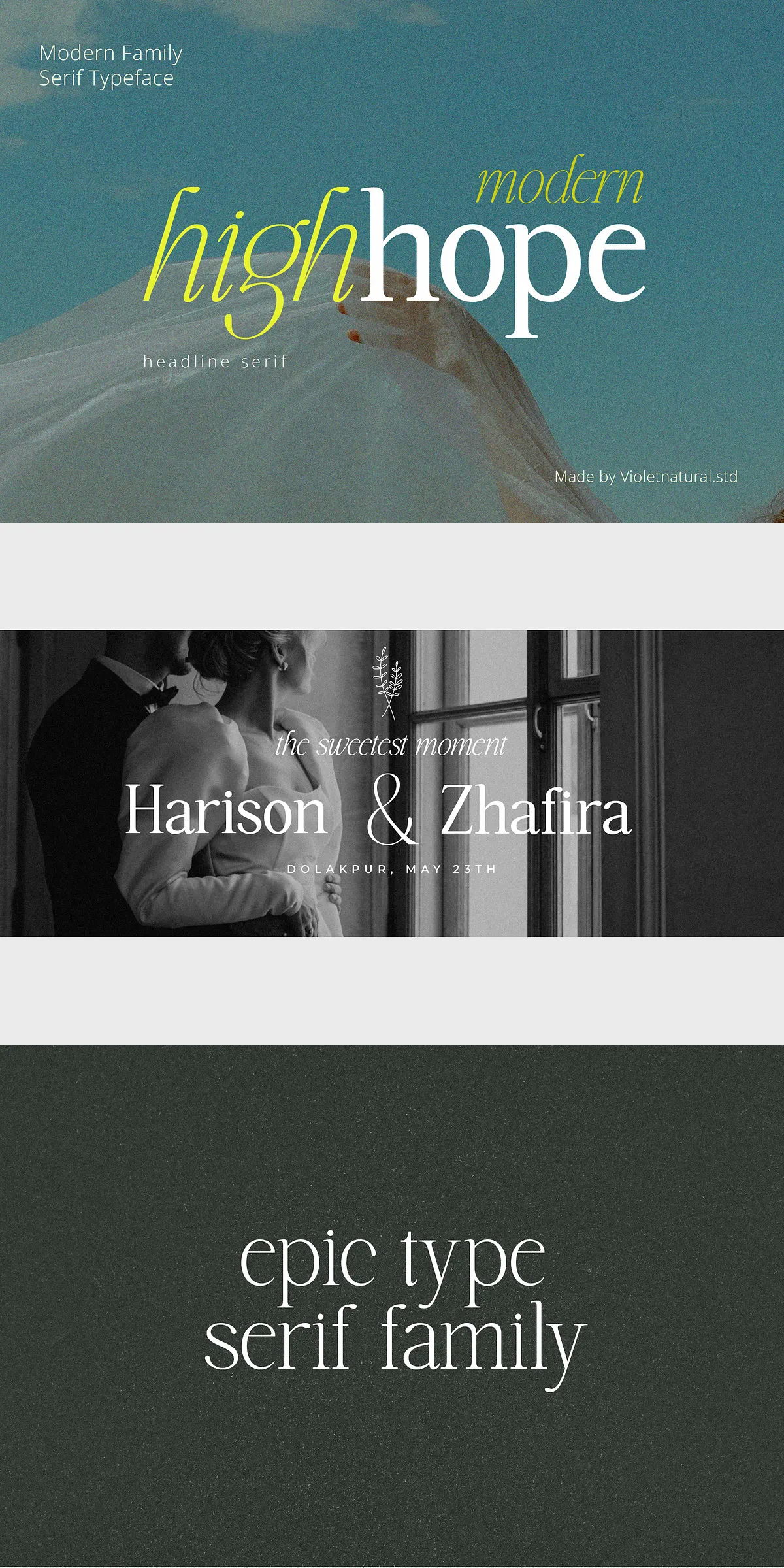
Step into a design era where timeless elegance meets contemporary edge. Highhope Serif Family is more than a typeface—it’s a statement. Meticulously crafted to honor the soul of classic retro typography while fully embracing the demands of today’s digital world, Highhope Serif Family transforms ordinary projects into extraordinary visual experiences. Whether you’re building a brand identity, designing an editorial layout, or crafting a bold poster, this font delivers aesthetic sophistication, emotional warmth, and undeniable impact.
Retro Roots, Modern Purpose: A Typeface Built for Today
Highhope Serif Family draws its inspiration from the golden age of print: the 1950s to 1970s, when serif typefaces defined sophistication. Think vintage magazines, movie posters, and classic branding—characters with personality, contrast, and a touch of drama. But this isn’t nostalgia for nostalgia’s sake. Highhope Serif Family reimagines those retro foundations through a modern lens. Its letterforms are harmoniously balanced, with refined stroke weights, improved spacing, and clean geometry—ensuring flawless readability on screens, in print, and across platforms.
This fusion of old and new creates a rare duality: it feels familiar and comforting, yet fresh and bold. It’s the kind of font that commands attention without shouting—perfect for creators who want depth, character, and timeless appeal in their work.
Fully-Featured Font Family for Every Design Need
Highhope Serif Family isn’t a single style—it’s a complete suite of typographic tools. Each variant is designed to serve a specific creative purpose, empowering you to build hierarchy, rhythm, and visual storytelling:
- Regular: The foundation of the family. Ideal for body text, captions, and clean headlines that need clarity and grace. Its balanced proportions make it highly legible and highly stylish.
- Italic: Adds elegance and motion. Use for quote blocks, feature titles, or to emphasize emotional moments in your design. The subtle slant enhances expressiveness while maintaining elegance.
- Bold: For impact. When you need to grab attention instantly, this weight delivers power and presence. Perfect for logos, posters, and section headers.
- Bold Italic: The ultimate powerhouse. Combine strength with flair. Use in editorial design, promotional materials, or branding to create dynamic, high-energy visuals.
Choosing the right variant isn’t just about style—it’s about strategy. With four core weights and styles, you can guide your audience’s eye, create visual tension, and deliver your message with precision and flair.
Designed for Creatives, Built for Impact
Highhope Serif Family thrives in real-world design scenarios:
- Branding & Logos: Create distinctive, memorable brand identities that stand out in crowded markets. The retro-meets-modern style gives your logo character and emotional depth.
- Editorial Design: Elevate magazine spreads, zines, and digital publications with headlines and quote blocks that tell a story.
- Print & Packaging: Add aesthetic richness to business cards, flyers, packaging, and posters. The font’s texture and balance make physical designs feel luxurious and intentional.